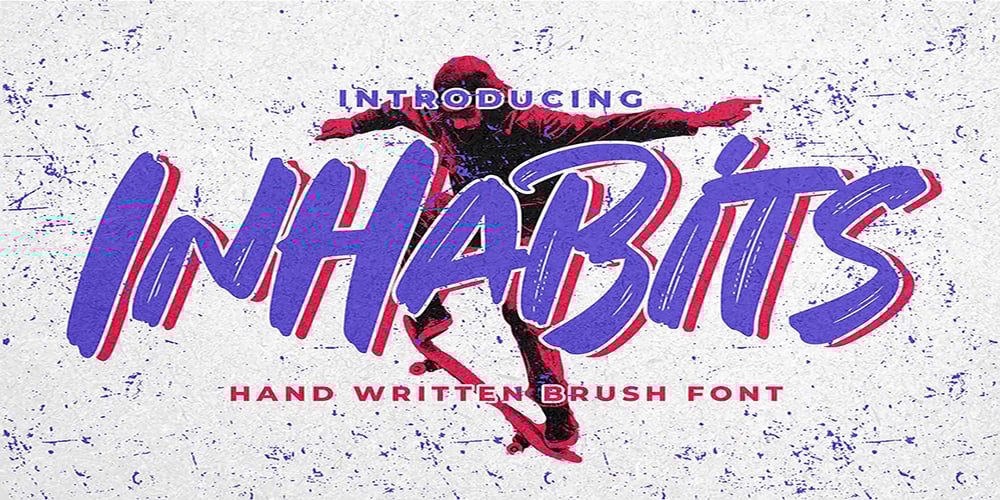
Inhabits
Inhabits font
Inhabits Font Family was designed by Abdul Malik Wisnu, Anang Fibriyanto and published by Gassstype. Inhabits contains 1 styles and family package options. Hello Everyone, introduce our new product Font Inhabits it is Handwritten Brush Font,This is a Textured Natural Style and classy style with a clear style and dramatic movement.This font Inhabits is great for your next creative project such as logos, printed quotes, invitations, cards, product packaging, headers, invitation,advertisements,product designs, stationery, wedding designs,label ,product packaging, special events or anything that need handwritting taste.You can activate 16 Ligatures glyphs and 13 Alternates glyphs OpenType panel.